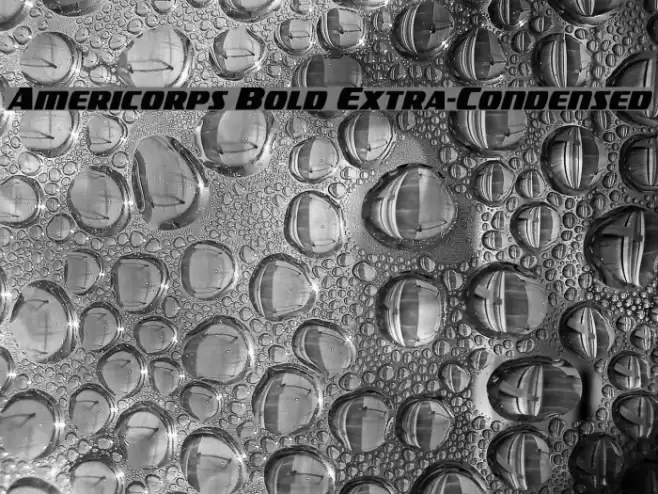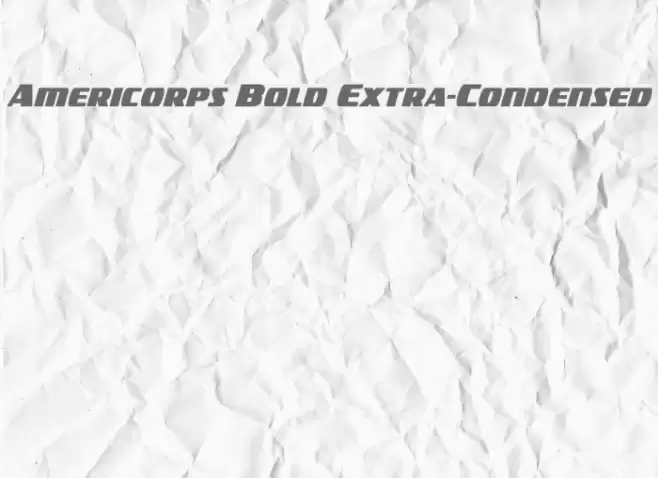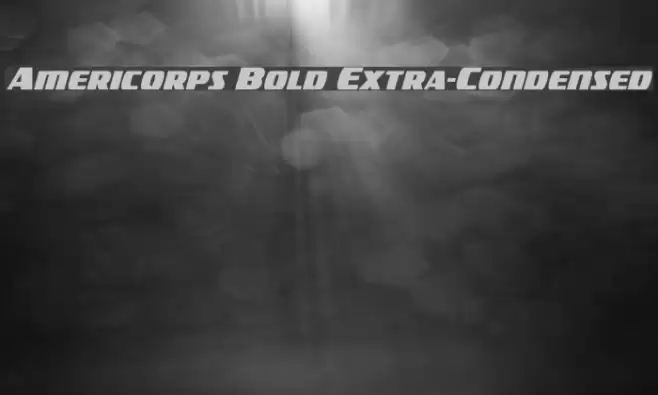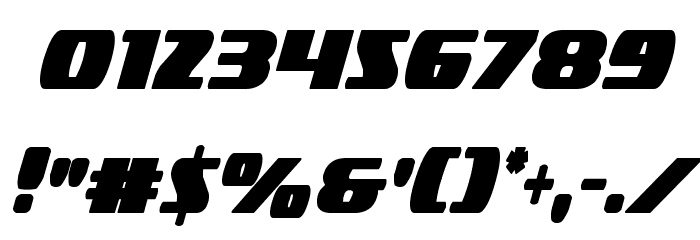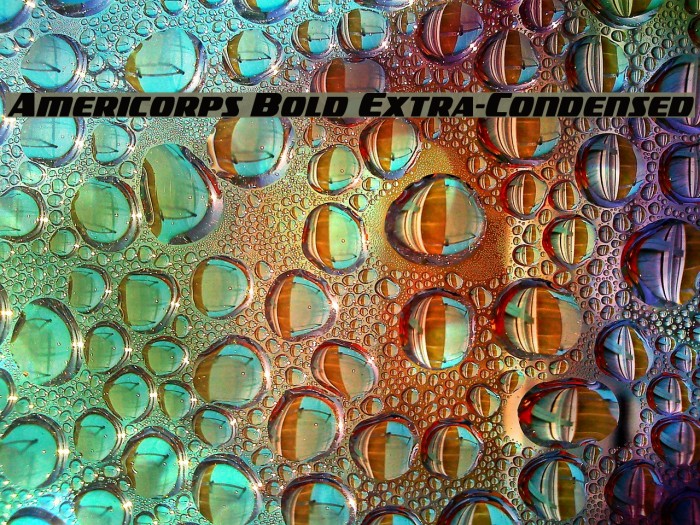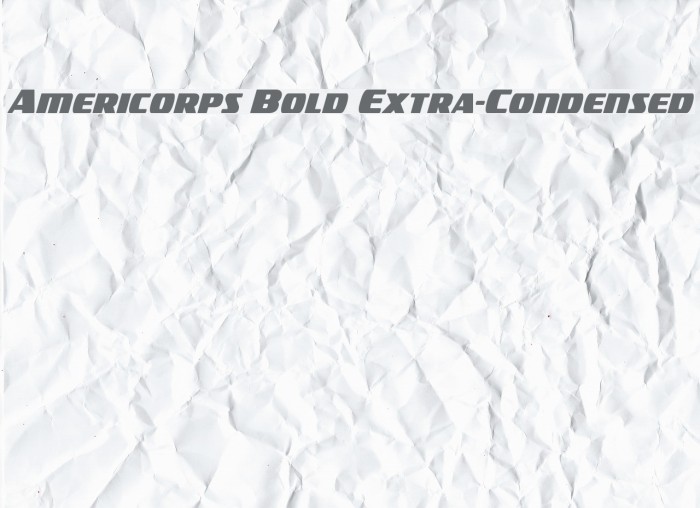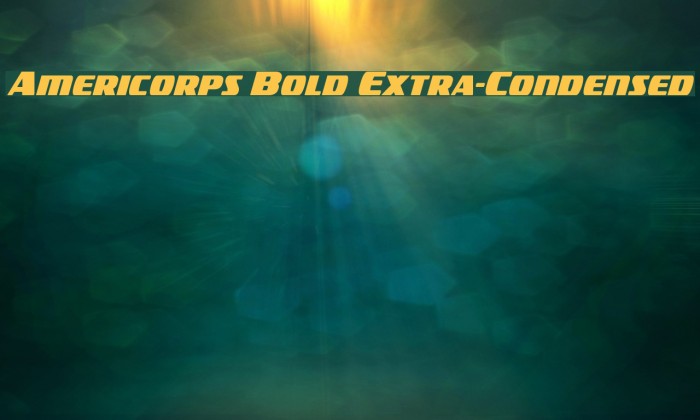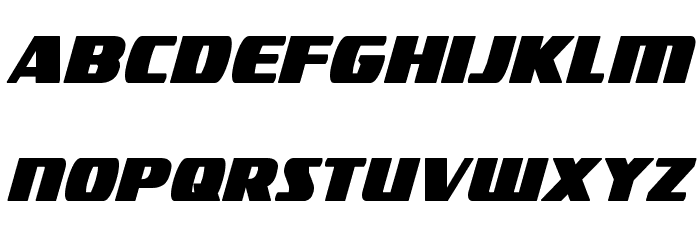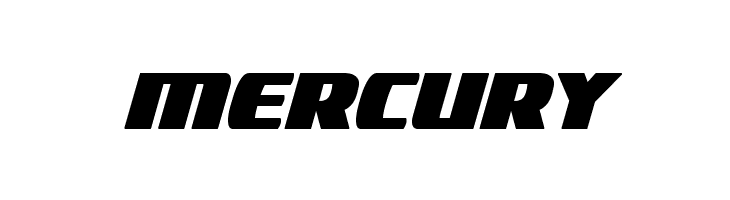
Americorps Bold Extra-Condensed Font
Americorps Bold Extra-Condensed Description
This font features a bold and extra-condensed style, characterized by its strong, impactful presence. The letters are tightly spaced, creating a compact and cohesive look. The strokes are thick and uniform, providing a high contrast that enhances readability and visual appeal. The design is modern and dynamic, with a slight slant that adds a sense of motion and energy. This font is ideal for making a statement, capturing attention with its assertive and robust appearance.
A bold, extra-condensed font with high contrast and dynamic style from Uncategorized fonts.
- Proposed Projects: Ideal for headlines, posters, branding, and advertising where a strong, impactful presence is needed.
- Character Spacing: Tight